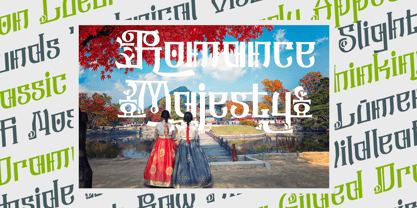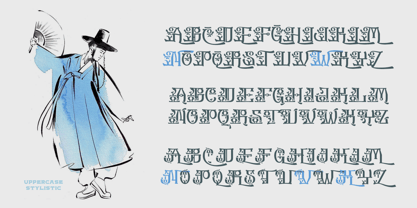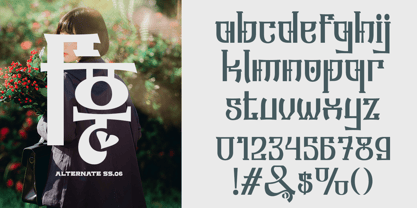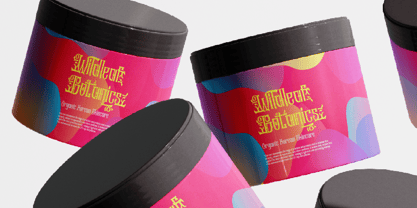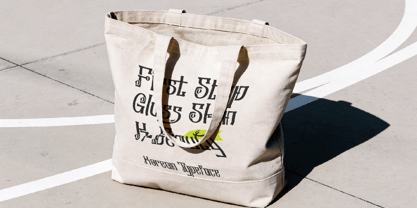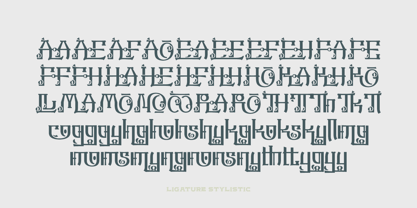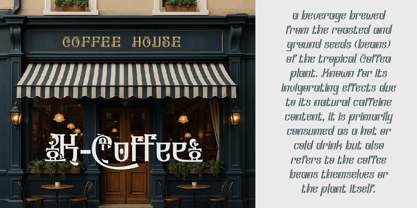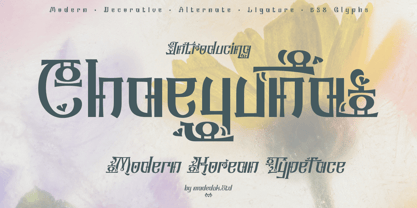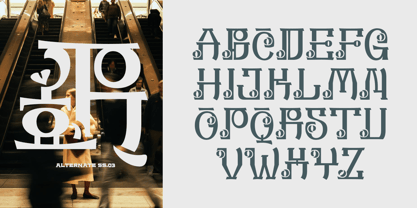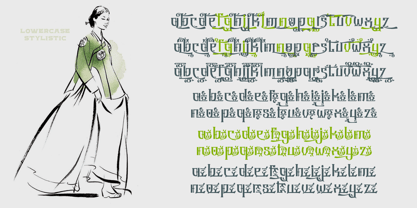
Chaeyuna
by madeDeduk
The Chaeyuna Font Family was designed by madededuk and published by madeDeduk. Chaeyuna contains 2 styles and family package options. More about this family
This font showcases a decorative typographic style inspired by modern Korean aesthetics, featuring graceful and expressive letterforms with artistic detailing. Each character is designed with subtitle ornamental touches that resemble Korean calligraphy, giving the typeface an elegant and unique appearance often seen in K-style branding and contemporary Korean visual design. Overall, the font blends traditional and modern influences, reflecting the minimalist yet refined nature of Korean design culture. The symmetrical and decorative structure of the letters creates a strong visual harmony, making it suitable for logos, titles, or branding projects that aim to express a classy and modern Korean aesthetic vibe.